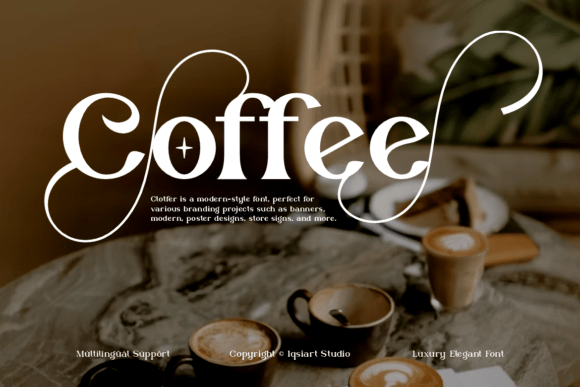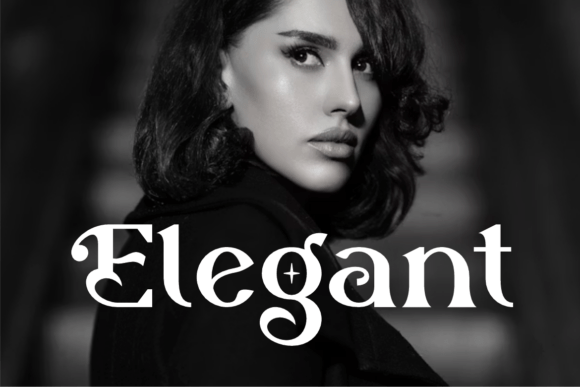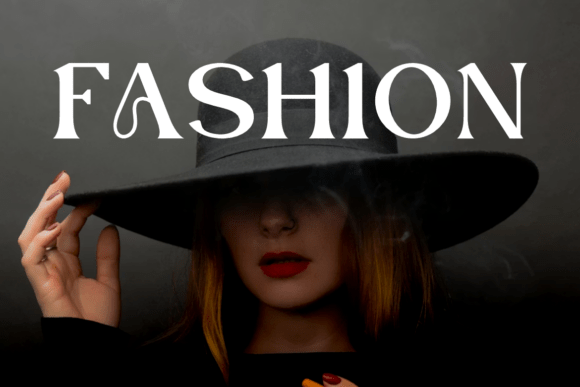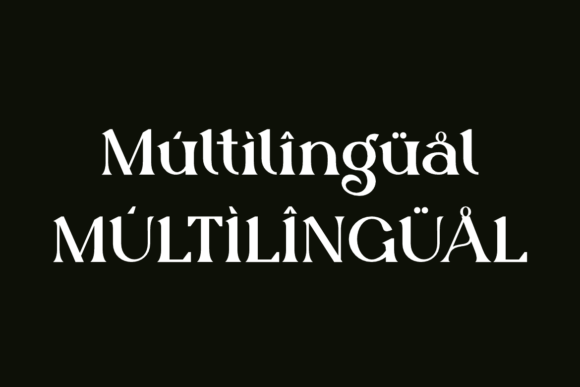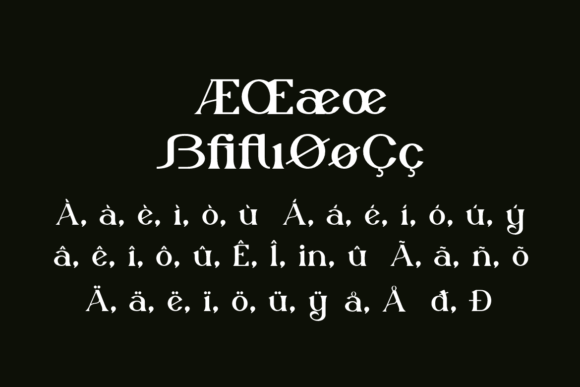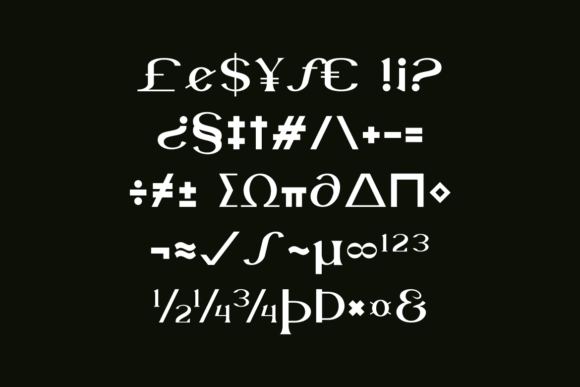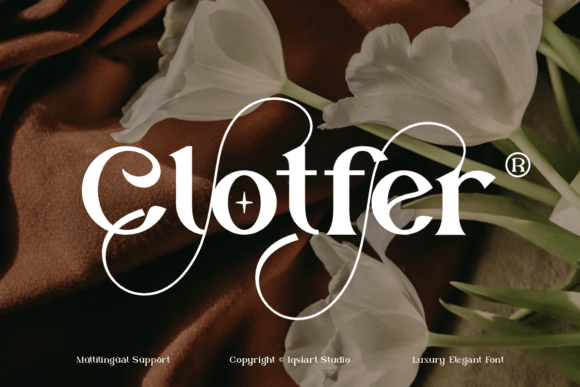
Discover the Elegance of Clotfer Font: A Serif and Authentic Display Typeface
Are you a designer or crafter looking for a font that exudes elegance and sophistication? Look no further than Clotfer Font, a serif and authentic display typeface that is perfect for a variety of design needs. In this article, we’ll explore the features and benefits of Clotfer Font, and show you how to make the most of this versatile typeface.
What is Clotfer Font?
Clotfer Font is a carefully crafted serif typeface that is designed to make a statement. With its classic and authentic feel, it’s perfect for projects that require a touch of elegance and refinement. Whether you’re working on a branding project, a website, or a print design, Clotfer Font is a great choice.
Key Features of Clotfer Font
So, what sets Clotfer Font apart from other typefaces? Here are some of its key features:
- Serif and Authentic: Clotfer Font is a traditional serif typeface with a authentic feel that’s perfect for designs that require a classic look.
- Display Typeface: With its elegant and refined design, Clotfer Font is perfect for display purposes, such as headings, titles, and captions.
- Multilingual Support: Clotfer Font supports multiple languages, making it a great choice for international projects.
What You’ll Get with Clotfer Font
- Use it for Headings and Titles: Clotfer Font is perfect for headings and titles, where its elegant and refined design can really shine.
- Experiment with Different Sizes and Styles: Clotfer Font comes in a range of styles and sizes, so don’t be afraid to experiment and find the perfect look for your project.
- Pair it with Other Fonts: Clotfer Font pairs well with other serif and sans-serif fonts, so try pairing it with other fonts to create a unique look.
Why Choose Clotfer Font?
So, why should you choose Clotfer Font for your next project? Here are just a few reasons:
- Elegant and Refined Design: Clotfer Font has a classic and authentic design that’s perfect for projects that require a touch of elegance.
- Versatile and Flexible: With its wide range of themes and font styles, Clotfer Font is perfect for a variety of design needs.
- Multilingual Support: Clotfer Font supports multiple languages, making it a great choice for international projects.
In conclusion, Clotfer Font is a serif and authentic display typeface that’s perfect for designers and crafters looking for a elegant and refined font. With its wide range of themes and font styles, multilingual support, and versatility, Clotfer Font is a great choice for a variety of design needs. So why not give it a try and see how it can elevate your next project?